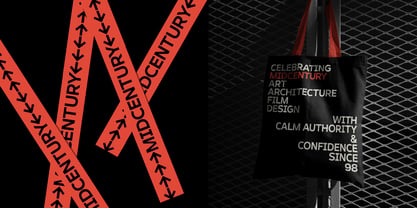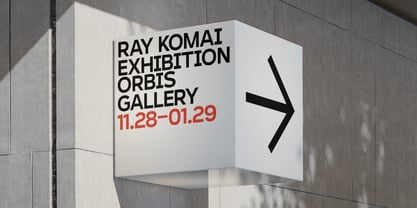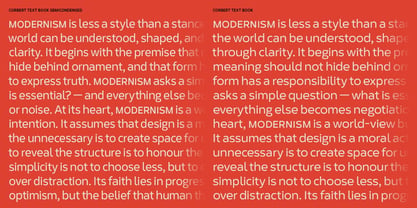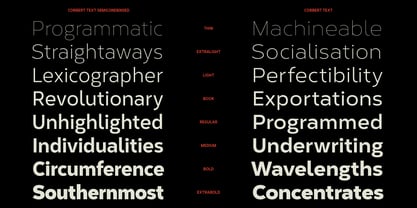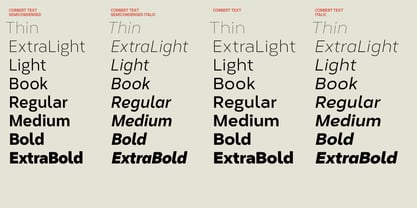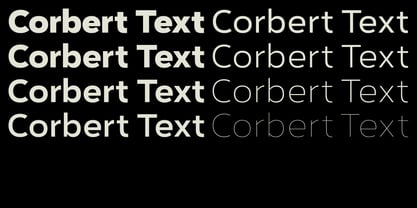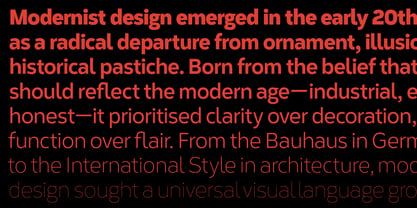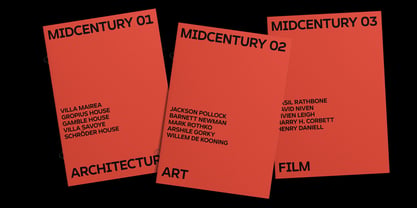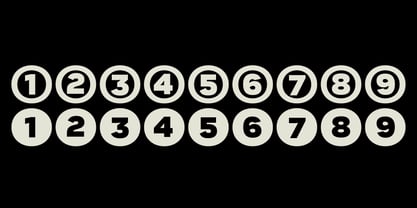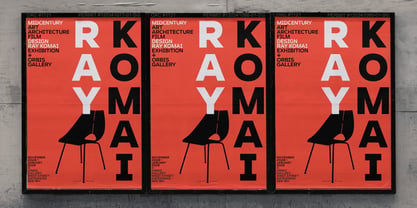
Corbert Text
The Corbert Text Font Family was designed by Jonathan Hill and published by The Northern Block. Corbert Text contains 32 styles and family package options. More about this family
Since its debut in 2013, Corbert has become a favourite for display work, known for its clarity and character in larger sizes. But as design needs evolved, so did Corbert. Recognising the demand for a version optimised for smaller text, we introduced Corbert Text—an optical variant designed for sizes 9pt and below. Rather than simply increasing the x-height, the entire typeface was scaled and refined, enhancing legibility while preserving Corbert’s distinctive geometric charm. The addition of a semi-condensed weight also offers flexibility in space-restricted layouts, making it perfect for everything from editorial spreads to complex UI designs.